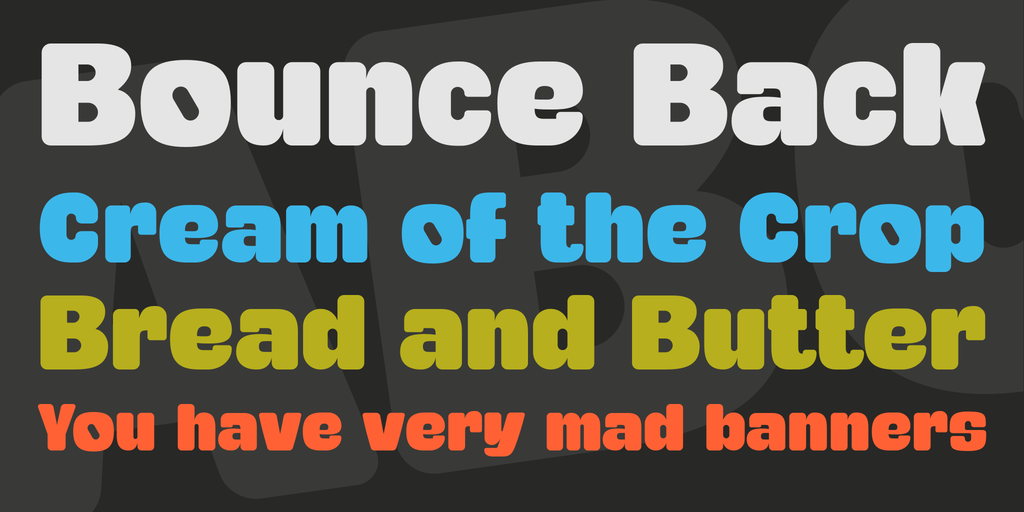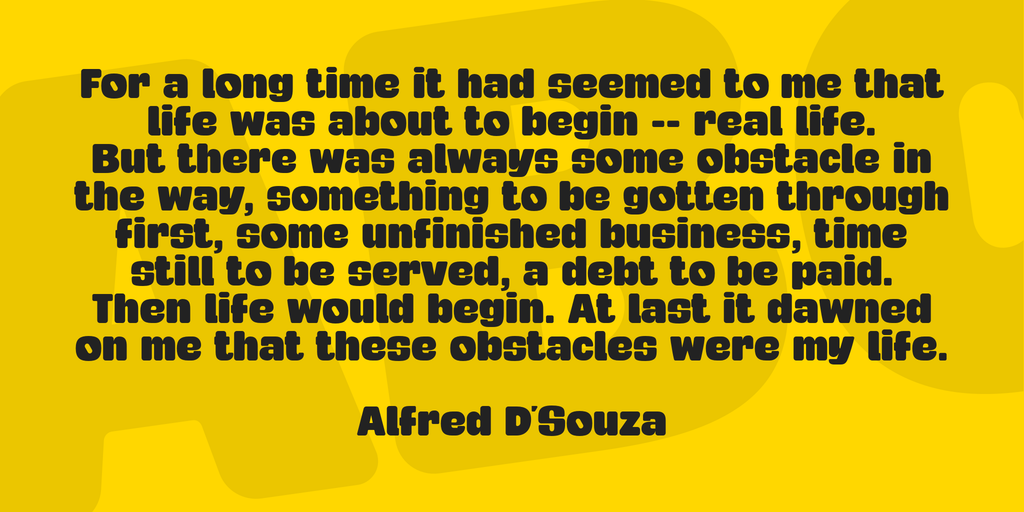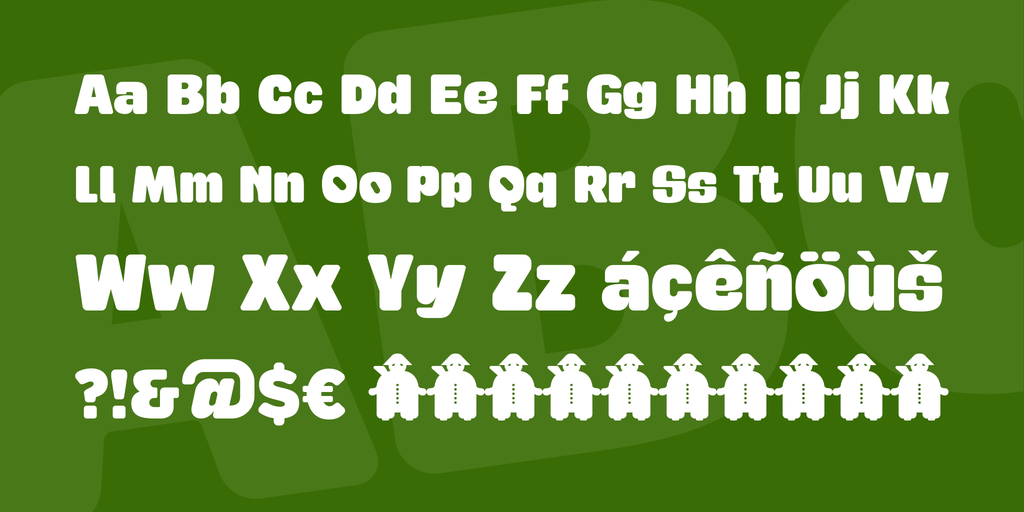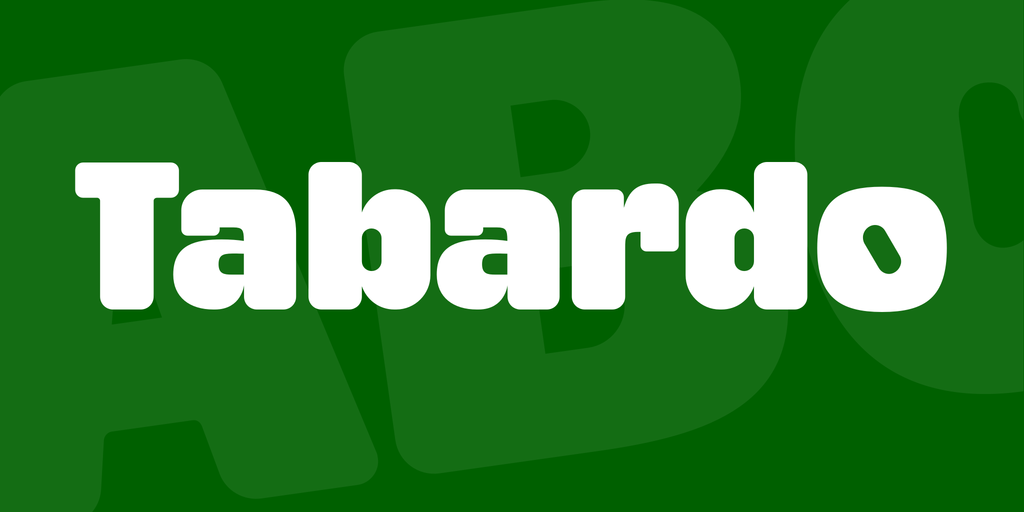
Tabardo is a very thick, round display typeface with square proportions. Perfect for titles in editorial design and advertising. This font is for PERSONAL USE ONLY and requires a license for commercial use.